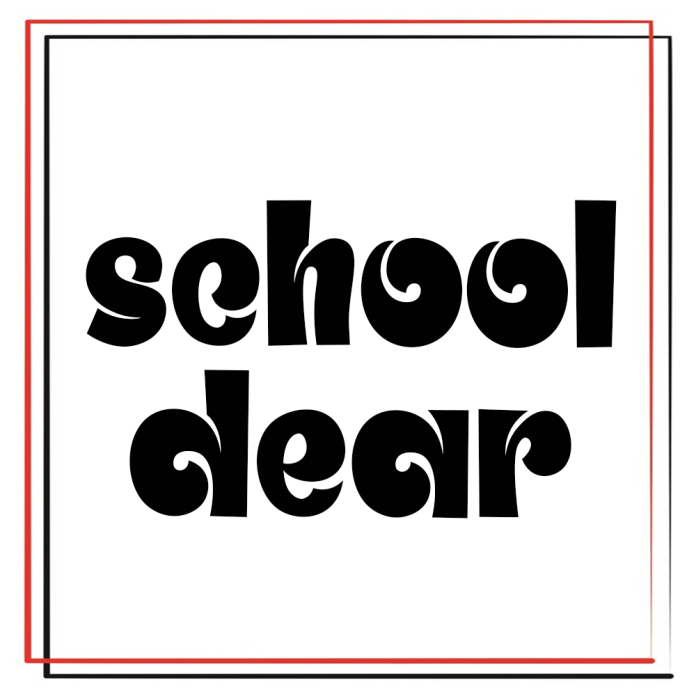
School Dear Font is a sweet and friendly handwritten font. Cute and fun, this font is ideal for writing wedding invitations, cards, or any other design that might need a fun touch!